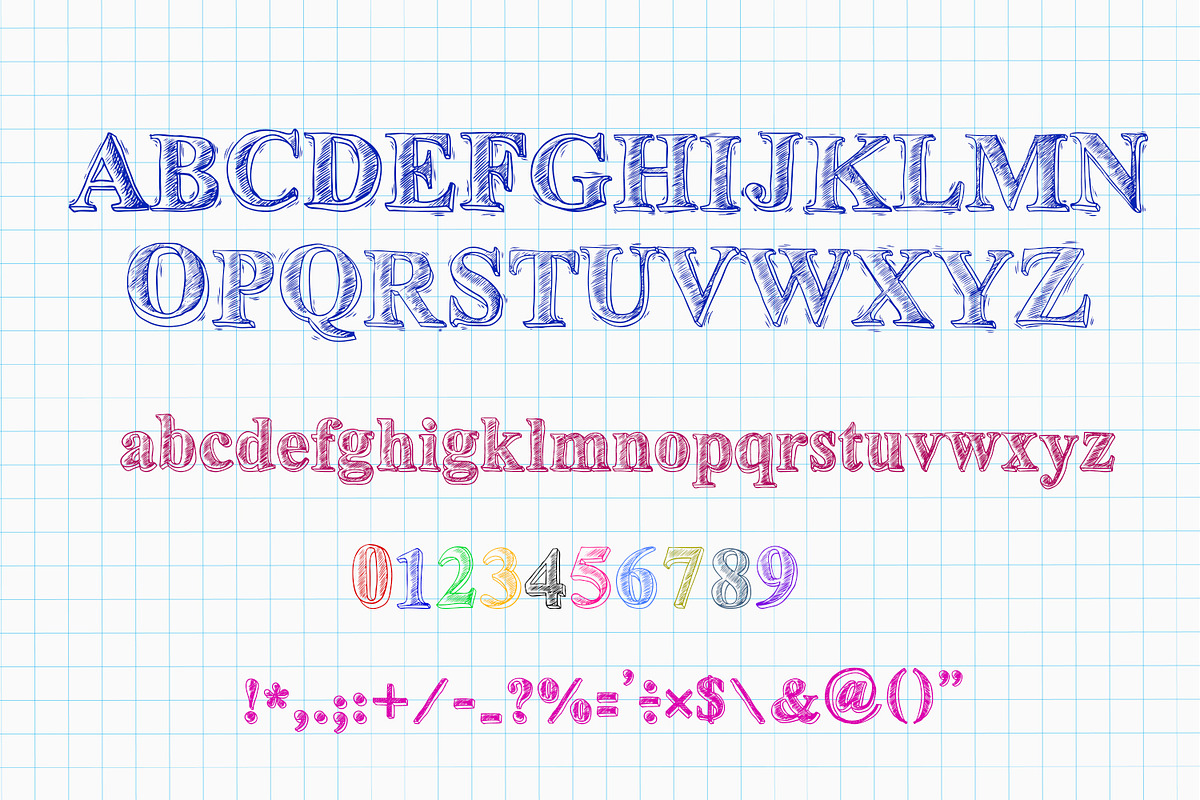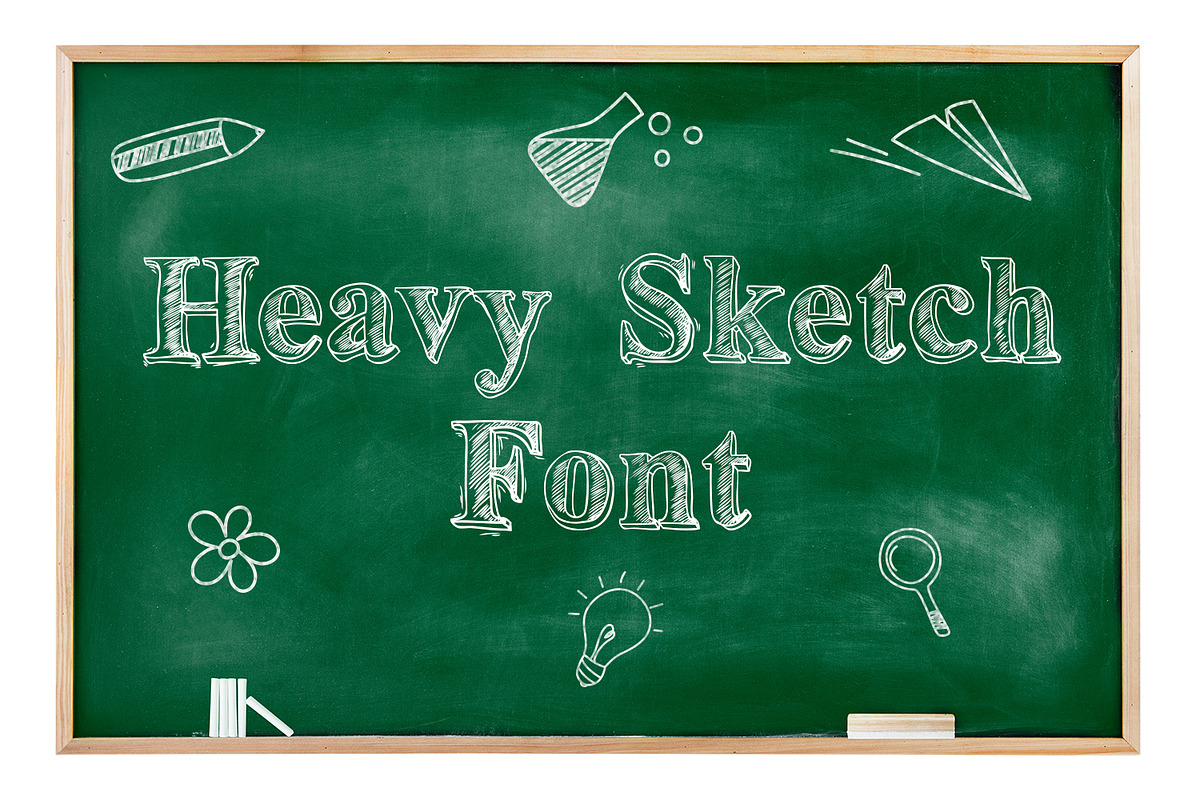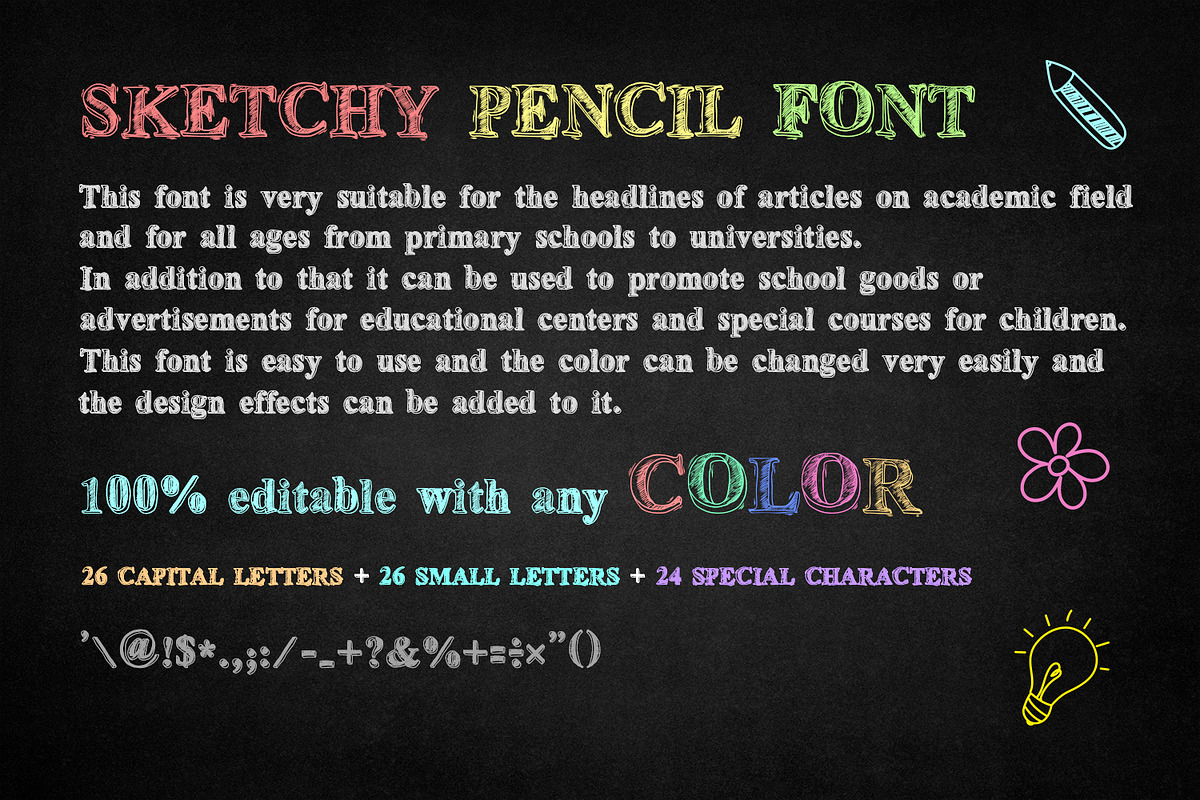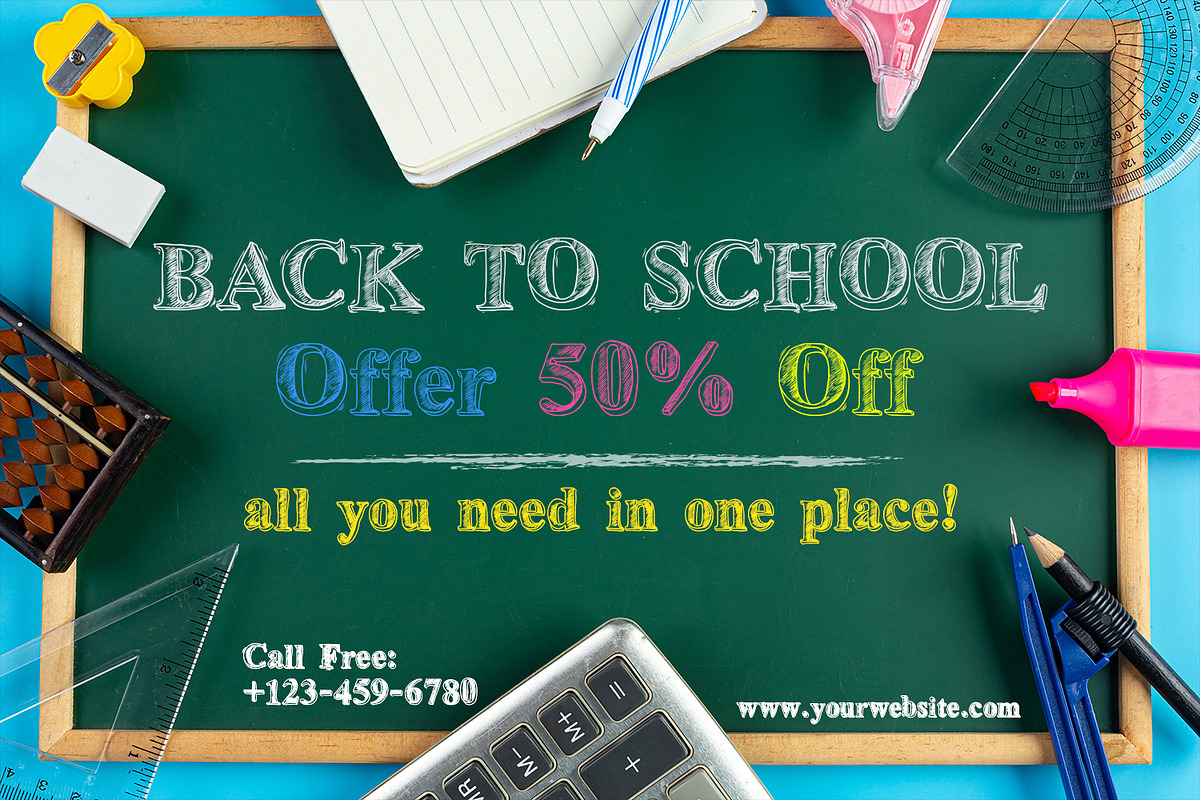
Heavy Sketch Font
Heavy Sketch is a great sketch handwritten font. It’s suitable for chalk writing and it’s the perfect font for school-themed projects.